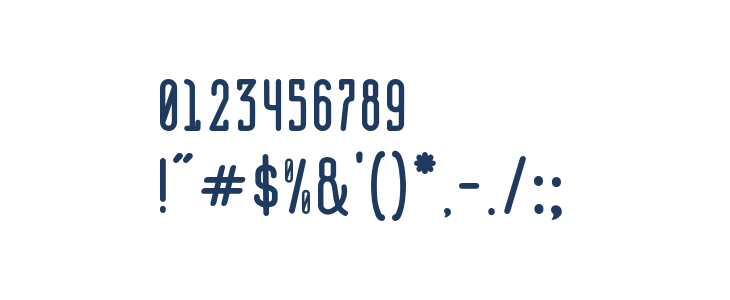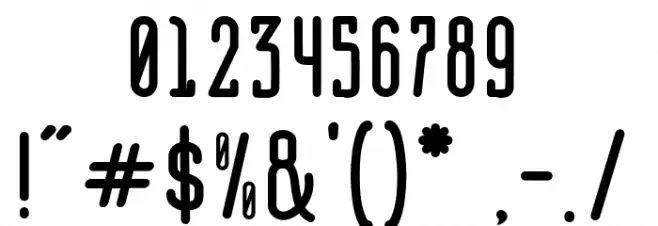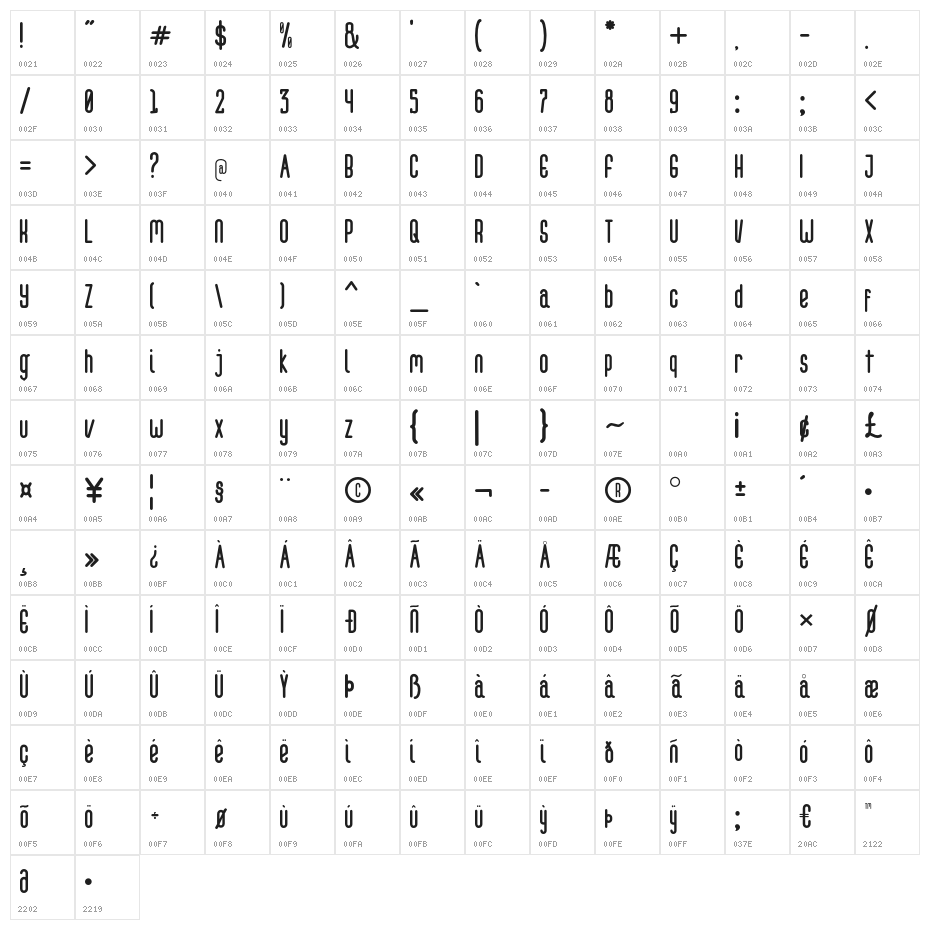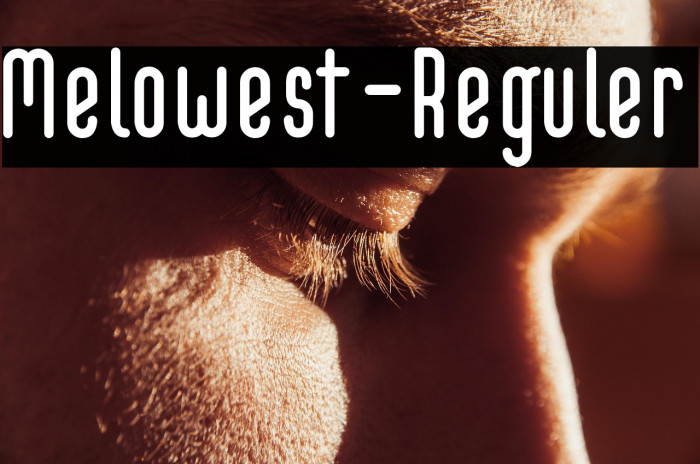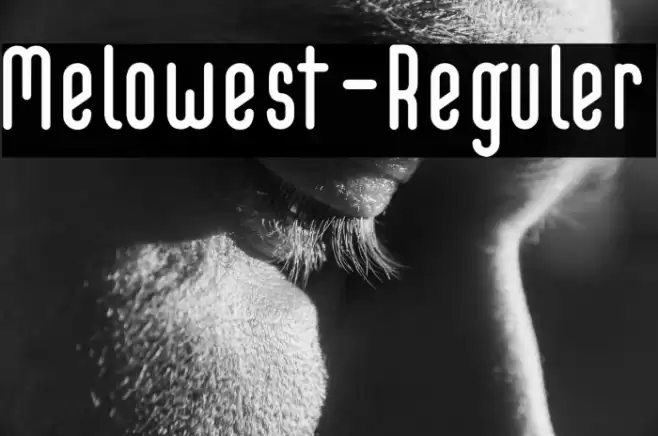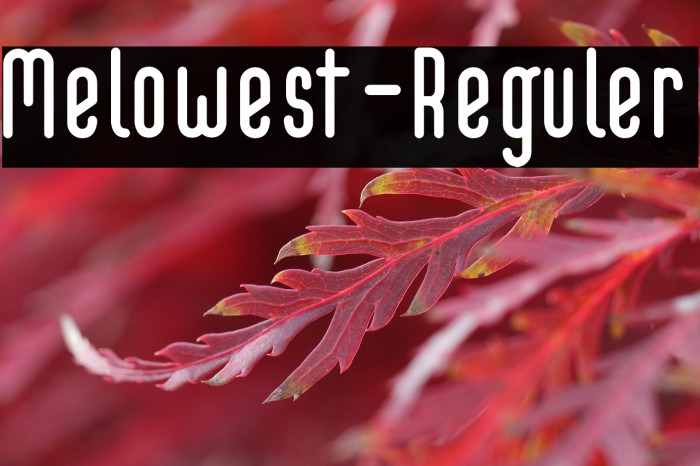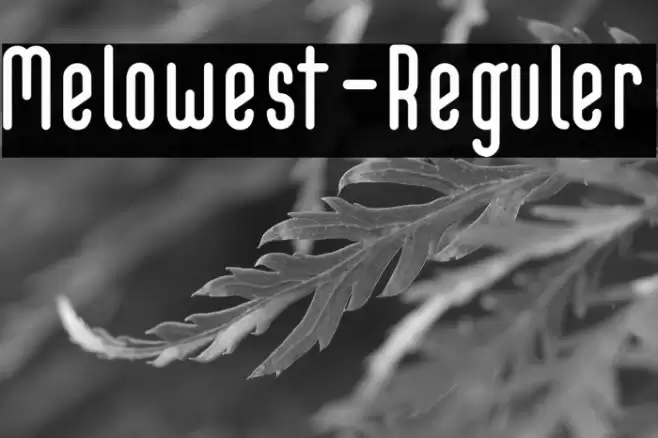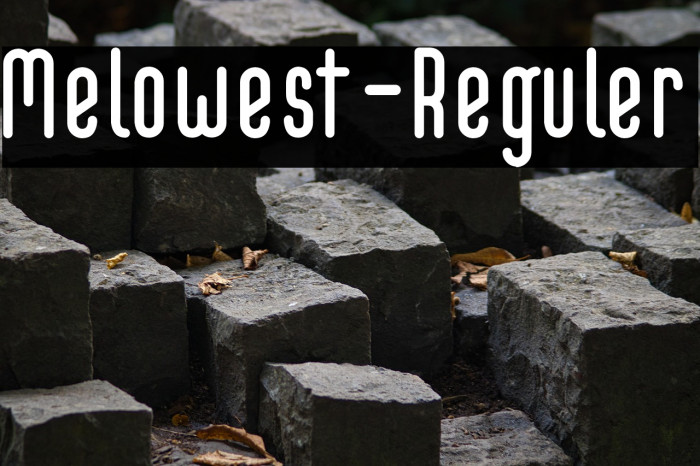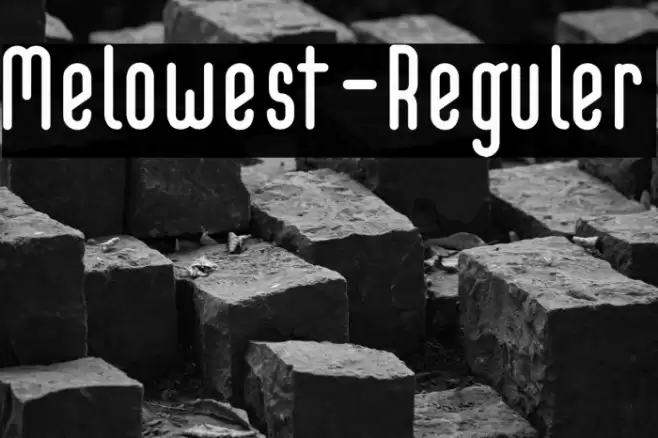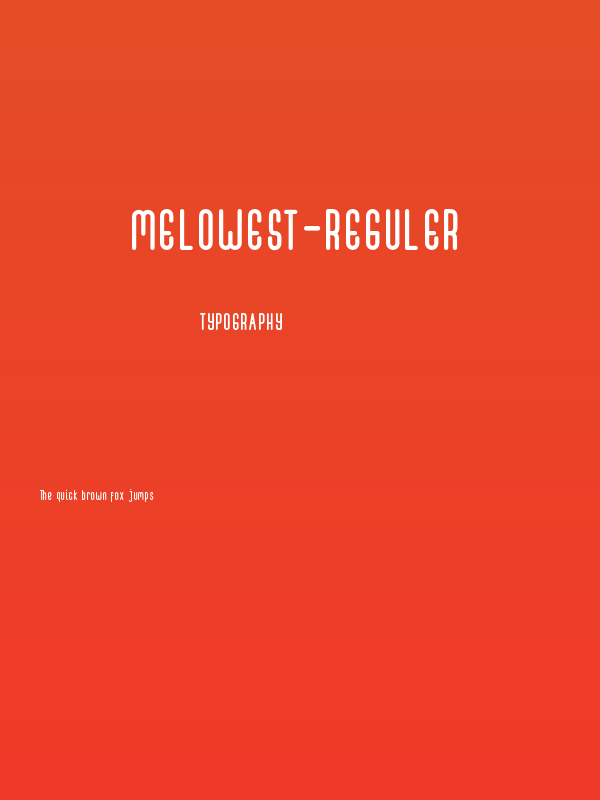
Melowest-Reguler Font
Melowest-Reguler Description
This font features a unique blend of modern and vintage styles, characterized by its rounded, elongated letterforms and consistent stroke width. The uppercase letters are tall and narrow, while the lowercase letters maintain a similar height, creating a harmonious and cohesive look. The numerals are distinct and easy to read, with a playful yet structured appearance. Special characters are well-integrated, maintaining the font's overall aesthetic. The font's clean lines and smooth curves make it versatile for various design applications.
| Overall Style | Modern Vintage |
| Proposed Projects | Ideal for branding, packaging, posters, and digital media where a modern yet vintage feel is desired. |